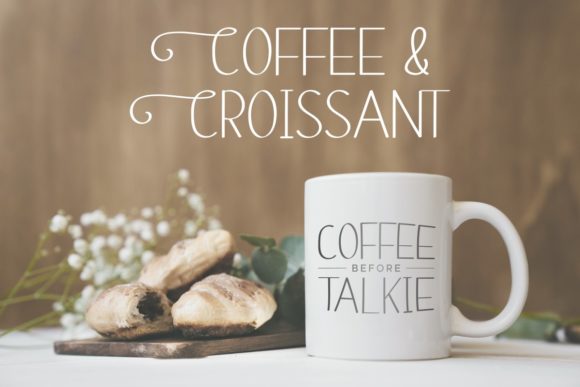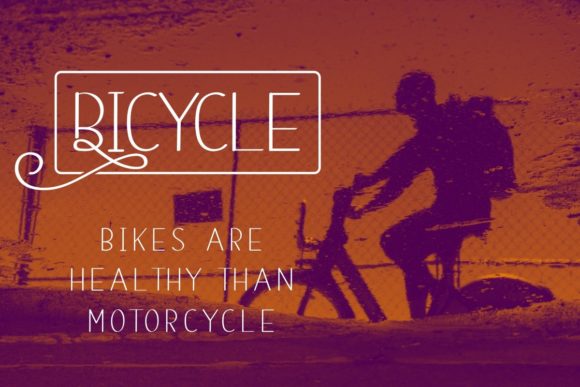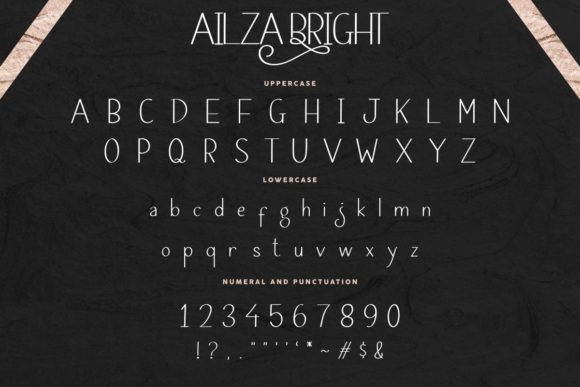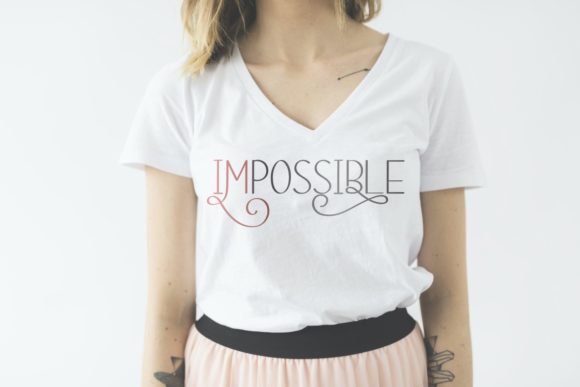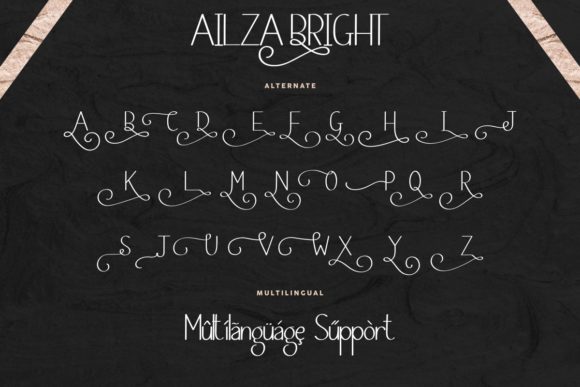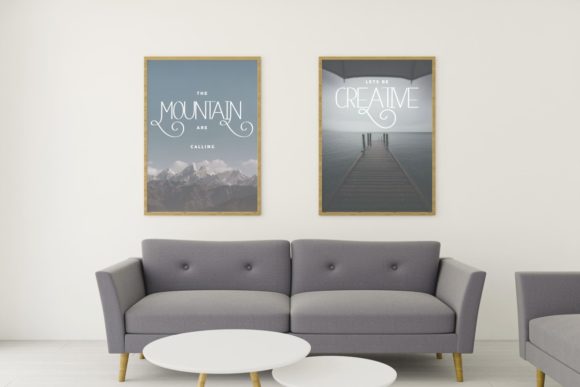
Ailza Bright Font: Elevate Your Designs with Elegance and Sophistication
In the world of typography, fonts play a crucial role in conveying the tone and personality of a design. For designers and crafters looking to add a touch of elegance and romance to their projects, Ailza Bright Font is an excellent choice. This stunning sans serif font is versatile, distinct, and perfect for a wide range of applications.
What is Ailza Bright Font?
Ailza Bright is an elegant and distinct sans serif font that has captured the hearts of designers and crafters alike. Its unique and sophisticated design makes it an ideal choice for projects that require a touch of luxury and refinement. Whether you’re working on a greeting card, headline, or any other design project, Ailza Bright Font is guaranteed to add a romantic feel that will leave a lasting impression.
Key Features of Ailza Bright Font
- Elegant and Distinct Design: Ailza Bright Font boasts a sleek and modern sans serif design that exudes elegance and sophistication.
- Versatile: This font is perfect for a wide range of applications, including greeting cards, headlines, posters, and more.
- Romantic Feel: Ailza Bright Font has a unique ability to add a romantic touch to any design project, making it perfect for wedding-related designs, Valentine’s Day cards, and more.
- Easy to Read: The font’s clear and clean design ensures that it’s easy to read, even at smaller sizes.
Applications of Ailza Bright Font
Ailza Bright Font is incredibly versatile and can be used in a variety of design projects, including:
- Greeting Cards: Add a touch of elegance and romance to your greeting cards, whether it’s for a birthday, wedding, or holiday.
- Headlines: Use Ailza Bright Font to create stunning headlines that grab attention and leave a lasting impression.
- Posters: Create eye-catching posters for events, promotions, or advertisements using Ailza Bright Font.
- Wedding Designs: Ailza Bright Font is perfect for wedding-related designs, including invitations, save-the-date cards, and more.
Tips for Using Ailza Bright Font
To get the most out of Ailza Bright Font, here are some tips to keep in mind:
- Pair with Other Fonts: Experiment with pairing Ailza Bright Font with other fonts to create a unique and visually appealing design.
- Use for Headlines and Titles: Ailza Bright Font is perfect for headlines and titles, so use it to create eye-catching text that grabs attention.
- Keep it Simple: Don’t overcomplicate your design – keep it simple and elegant to let Ailza Bright Font shine.
Ailza Bright Font is a stunning and versatile sans serif font that’s perfect for designers and crafters looking to add a touch of elegance and romance to their projects. With its unique and sophisticated design, Ailza Bright Font is guaranteed to elevate your designs and leave a lasting impression. Whether you’re working on a greeting card, headline, or any other design project, Ailza Bright Font is an excellent choice.